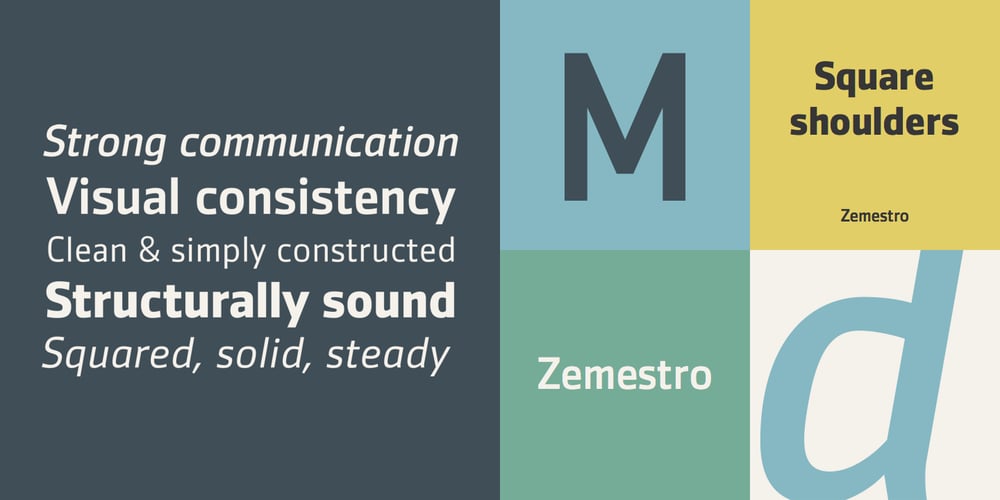
Zemestro
Zemestro font
Zemestro Font Family was designed by Dave Farey and published by Monotype. Zemestro contains 6 styles and family package options. Zemestro from 2003 was one of the first of the new “squarish sans-serifs”. Its designer David Farey says: “There’s nothing calligraphic about it, and there are no defining or identifiable single characters – it’s just clean and simply constructed.”